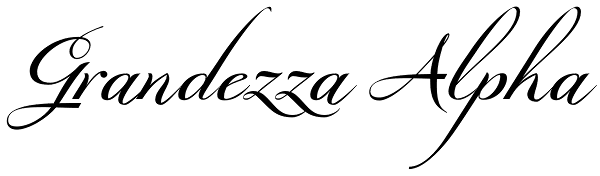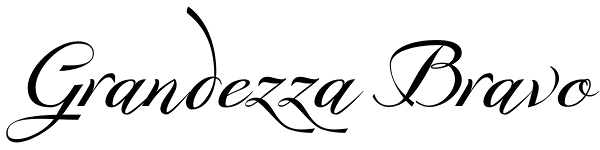
Grandezza
Grandezza is my most elaborate script so far and is the script for many countries that write in Latin letters as well. I designed it in 5 different parts, since I still think the OpenType Format is “phantastic” but not very practical. I give you 4...
Grandezza Alpha
Grandezza Echo
Grandezza Delta
Grandezza Bravo
Grandezza Charlie